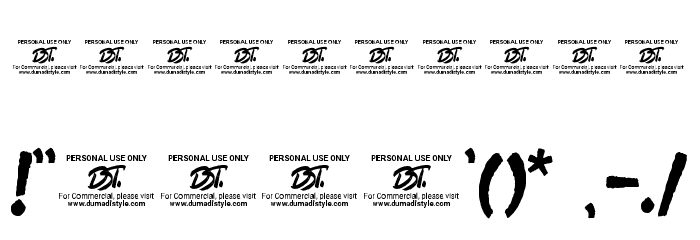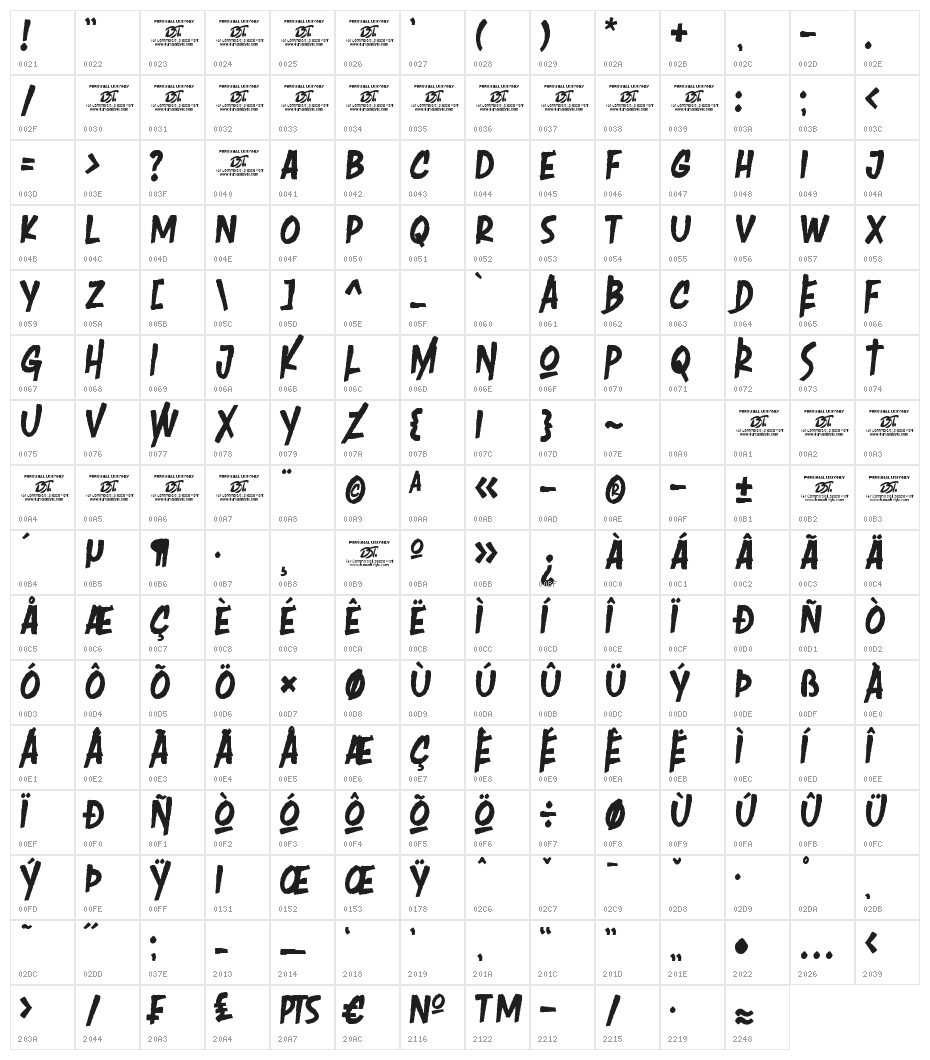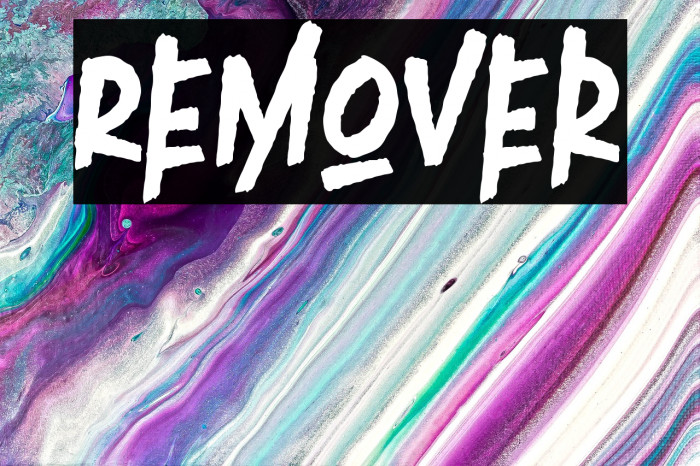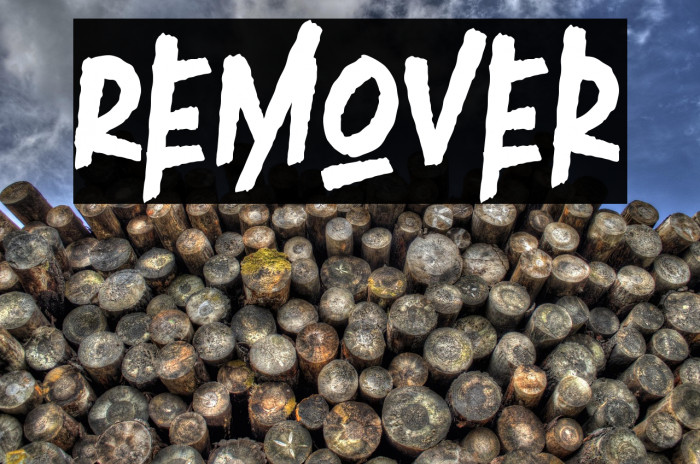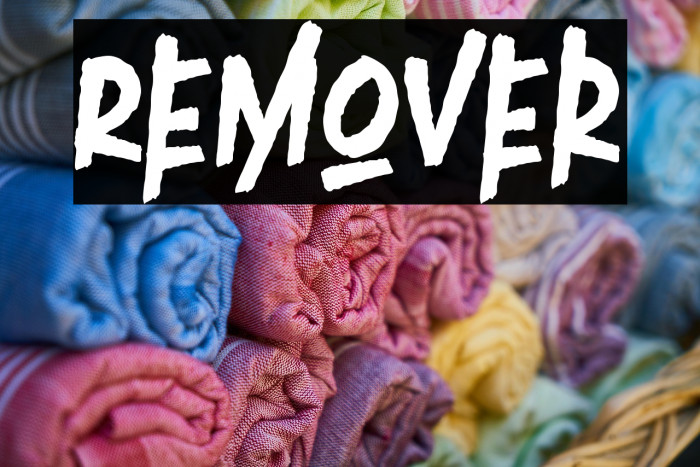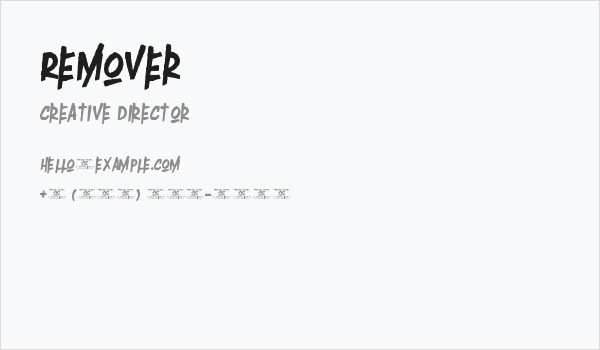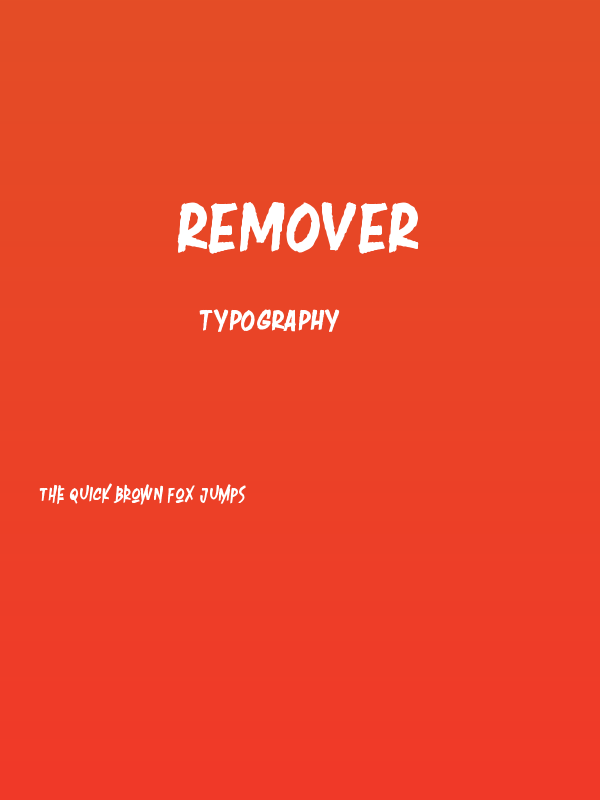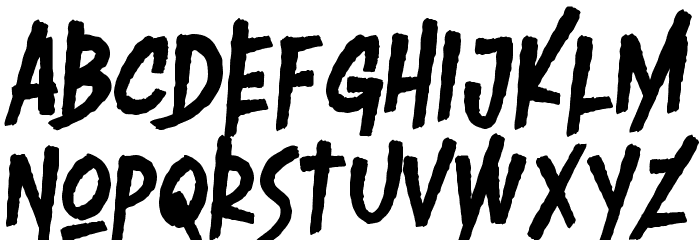
Remover Font
Remover Description
This font features a bold, energetic style with a hand-drawn appearance, characterized by its thick, uneven strokes and dynamic angles. The letters have a playful and informal feel, making them stand out with their unique, slightly irregular shapes. The uppercase and lowercase letters maintain a consistent style, with the uppercase being more pronounced. The numbers and special characters follow the same energetic design, adding to the font's cohesive look. This font is ideal for projects that require a lively and informal touch, such as posters, flyers, or social media graphics.
REMOVER UPPERCASE
REMOVER LOWERCASE
REMOVER OTHER CHARS
| Proposed Projects | Ideal for posters, flyers, social media graphics, and any project needing a lively, informal touch. |